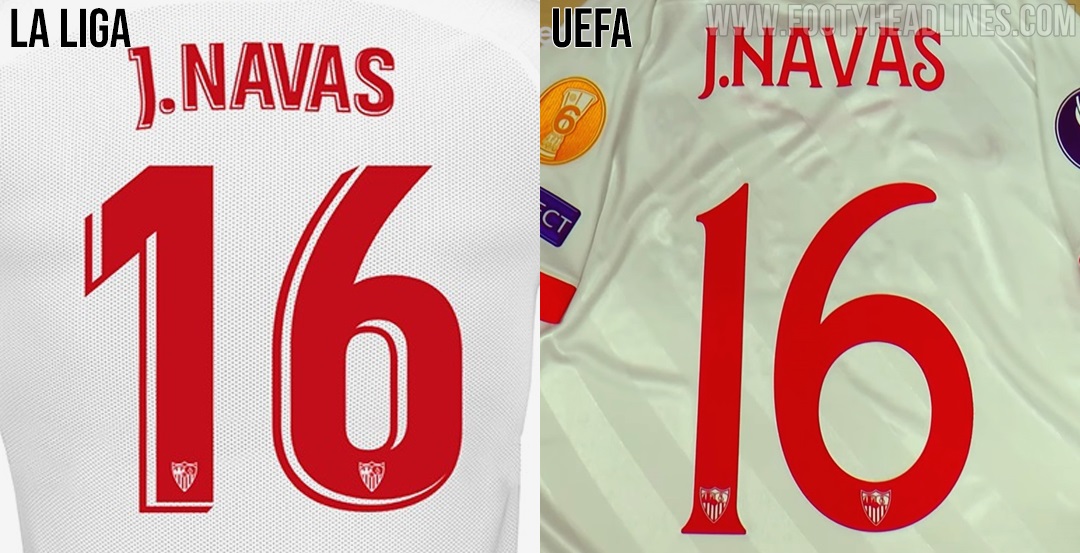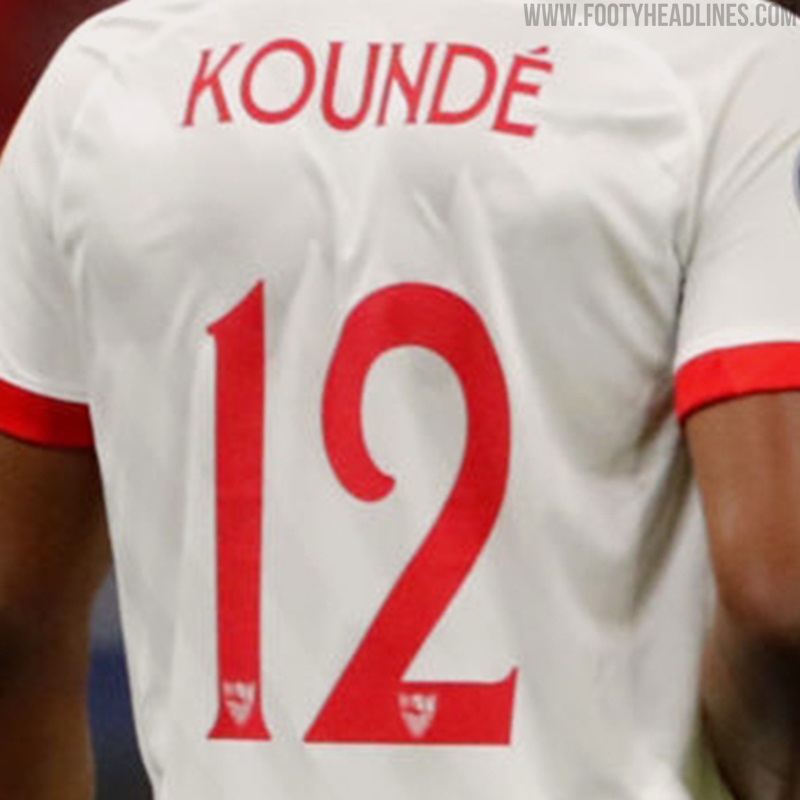
All-New Sevilla 2020 Kit Typeface Revealed - Debut In UEFA Super Cup Final Against Bayern
Update: Sevilla FC debuted their new 2020-21 European font in the the UEFA Super Cup match between FC Bayern Munich yesterday. The font has a very stylish look, in stark contrast to the official La Liga typeface.
The Sevilla 20-21 font was first shown off with an image of a Jesus Navas kit.
In the 2019-2020 season, FC Sevilla did not use an own typeface but the standard La Liga font.
Sevilla FC 2020 European Super Cup Final Kit
Sevilla FC will wear three commemorative patches in the final of the European Super Cup. A special inscription on the front for the match, the UEFA Super Cup badge on the left sleeve and the brand-new sixth champion of the Europa League badge on the left sleeve. FC Sevilla will also wear the Europa League 6 times winners badge in the 2020-2021 Champions League.
Sevilla 2020-21 Kit Font
The new Sevilla FC kit typeface is, as its general new visual identity, inspired by the city of Seville.
The new Sevilla 2020 font and general visual identity is used by the club for most of their graphics.
The new Sevilla font has a very classy style, in contrast to the bold La Liga font.
Sevilla FC will wear this new typeface in European competition this season, both in the Super Cup final and in the Champions League.
2019-20 kit with La Liga font